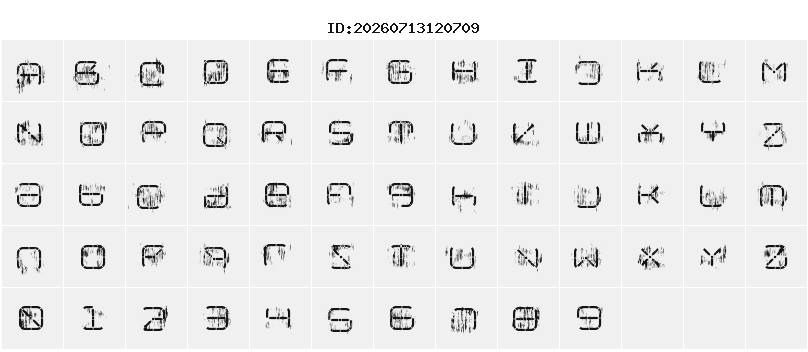
R-2014 Eroded Preview
• Font Name: R-2014 Eroded
• Font ID: MnsGrebck: R-2014 Eroded: 2011
• Full Font Name: R-2014 Eroded
• PostScript Name: R-2014Eroded
• Designer: Måns Grebäck
• Manufacturer: Måns Grebäck
About R-2014 Eroded.ttf
R-2014 Eroded.ttf is a modern, elegant sans-serif font designed for ultimate readability and visual harmony. Perfect for branding, headlines, web design, and print materials.